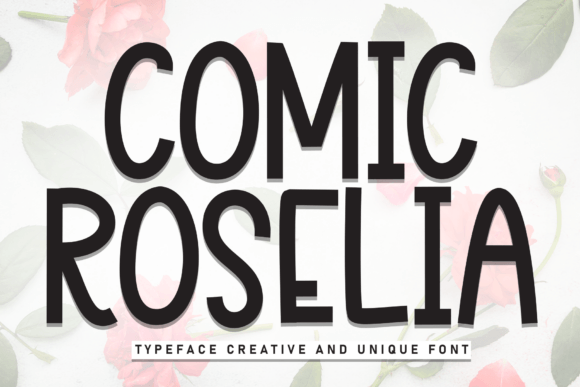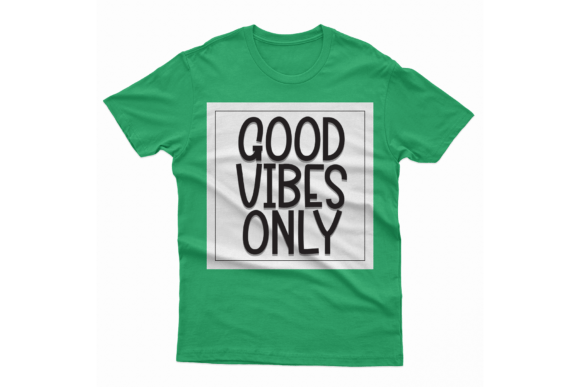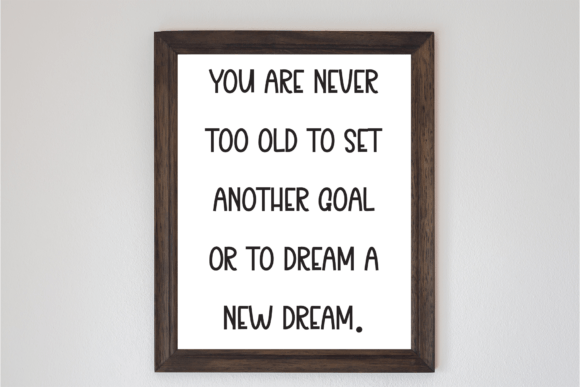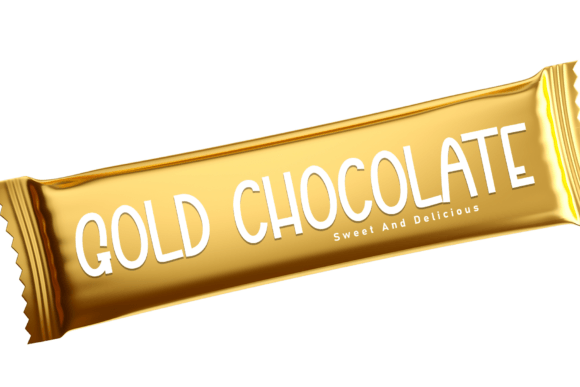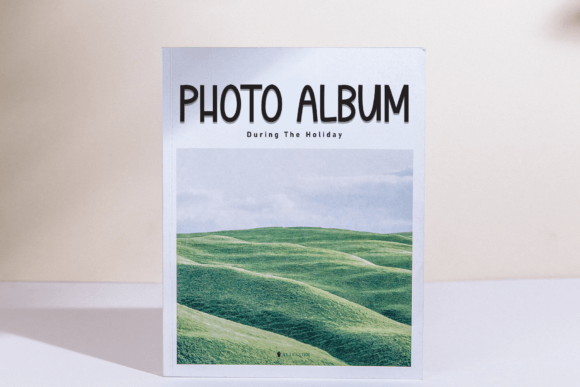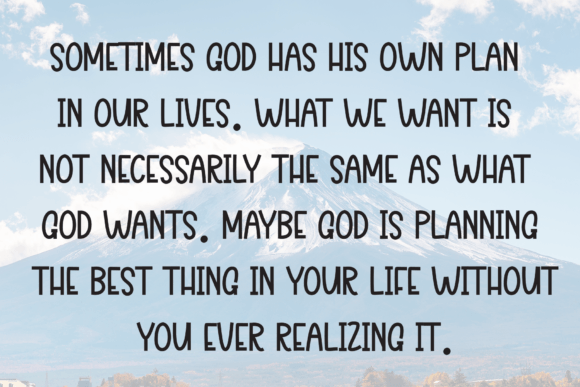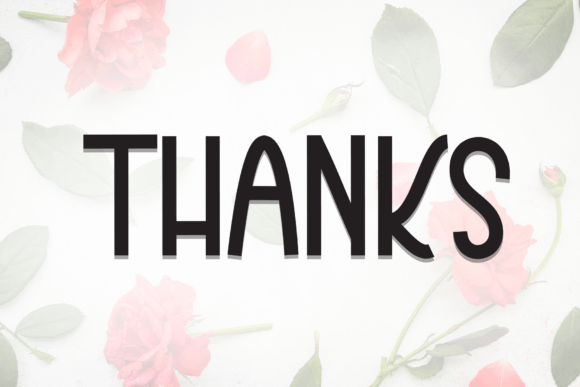
As a designer, there’s nothing quite like the thrill of seeing your latest project come to life. But sometimes, it’s the smallest details that can make all the difference. Remember the feeling of scribbling out a heartfelt thank-you note to a loved one, or the excitement of planning a wedding and crafting the perfect invitation?
That’s exactly what the Comic Roselia Font is designed to capture – the essence of handwritten love and warmth. This charming display font is perfect for adding a dash of personality to your designs, from wedding invitations to greeting cards and beyond. With its unique, playful characteristics, it’s no wonder the Comic Roselia Font has become a go-to choice for designers looking to add a touch of whimsy to their work.
Comic Roselia Font Key Features
- Font Family: Comic Roselia is a comic sans serif font family.
- Size: The font family includes various weights, ranging from Light to Black.
- Resolution: Optimized for use at medium to large sizes (e.g., posters, billboards, and signage).
- Unique Characteristics: Designed to resemble handwritten comic book lettering, with a playful, informal feel.
- Language Support: Supports a wide range of languages, including Latin-based scripts and some Cyrillic and Greek characters.
Designer Review: Comic Roselia Font
Overall, I’m impressed with the playful vibe of Comic Roselia Font. Here are some things that stand out:
- ✨ The font’s bold and rounded design creates a fun, approachable atmosphere perfect for children’s books or graphic novels.
- ✨ The varied font weights allow for a nice range of visual expression, from light to extra bold.
- ✨ Comic Roselia Font is available in a range of languages, making it a versatile choice for global projects.
- ⚠️ The font’s rounded edges can sometimes make it difficult to read, particularly in smaller sizes or at a distance.
- ⚠️ The font’s design may not be suitable for more serious or professional projects, where a cleaner, more straightforward font might be preferred.
In conclusion, Comic Roselia Font is a solid choice for projects where a playful, eye-catching font is needed. While it may not be the best fit for every project, it’s a fun and versatile option that can add a lot of character to your designs.
Comic Roselia Font is ideal for:
1. Comic book and graphic novel designs.
2. Cartoon and animation projects.
3. Video game and app designs.
4. Any project that requires a fun and playful font style.
Alternatives to Comic Roselia Font
Comic Sans MS is a sans-serif font that was designed to resemble handwriting. It’s often used for informal and playful designs, such as children’s books, menus, and advertisements. It’s a more casual alternative to Comic Roselia Font, with a more rounded and childlike feel.
Comparison to Comic Roselia Font: Comic Sans MS is more informal and playful, while Comic Roselia Font is more elegant and refined. Use Comic Sans MS when you want to create a lighthearted and approachable design.
Playfair Display is a luxurious and elegant serif font that’s often used for high-end designs, such as fashion magazines, luxury brands, and fine art. It’s a more refined and sophisticated alternative to Comic Roselia Font, with a more classic and vintage feel.
Comparison to Comic Roselia Font: Playfair Display is more formal and elegant, while Comic Roselia Font is more playful and whimsical. Use Playfair Display when you want to create a sophisticated and luxurious design.
Great Vibes is a modern and elegant script font that’s often used for creative and artistic designs, such as invitations, posters, and social media graphics. It’s a more dynamic and expressive alternative to Comic Roselia Font, with a more flowing and handwritten feel.